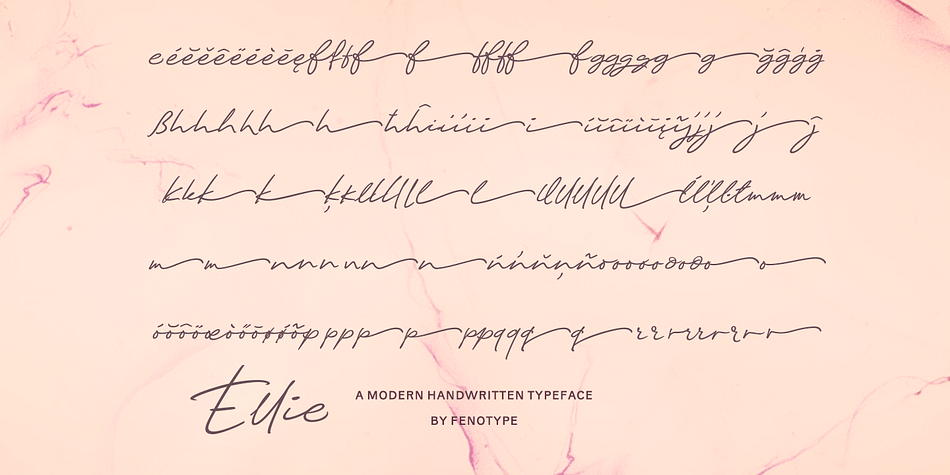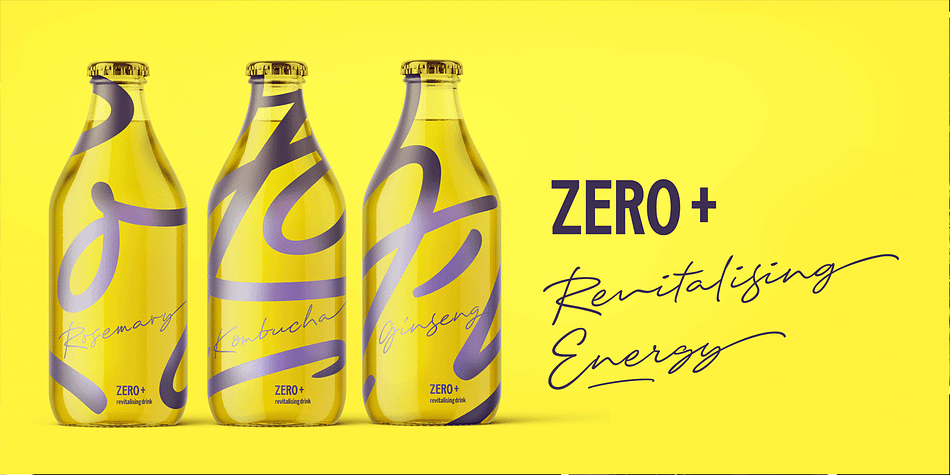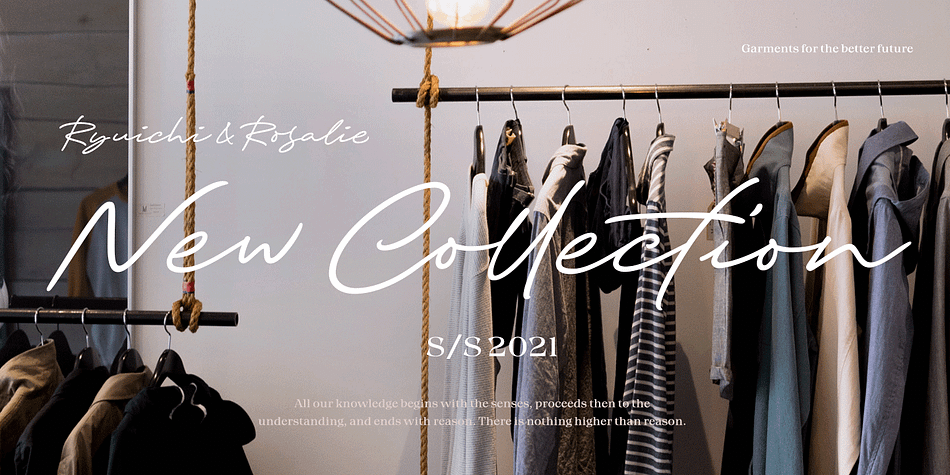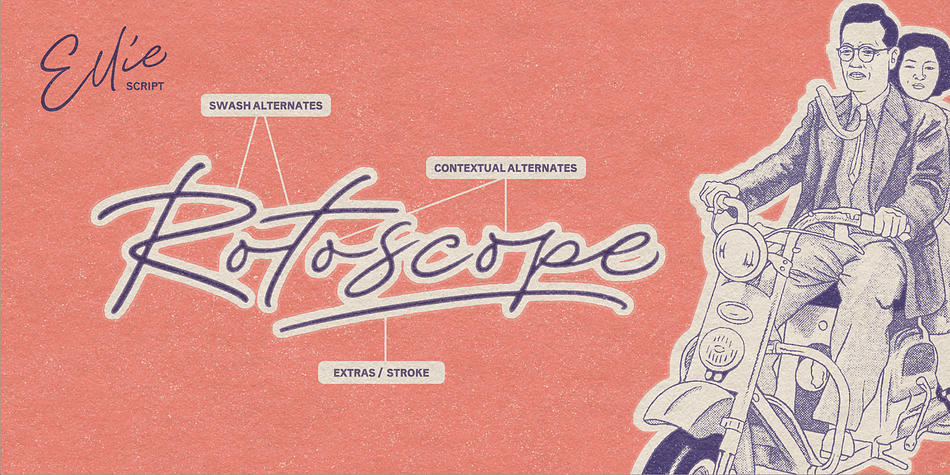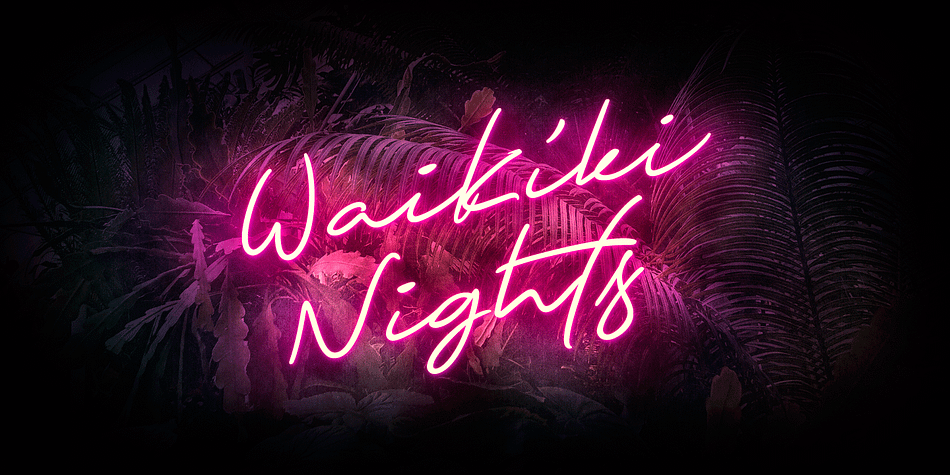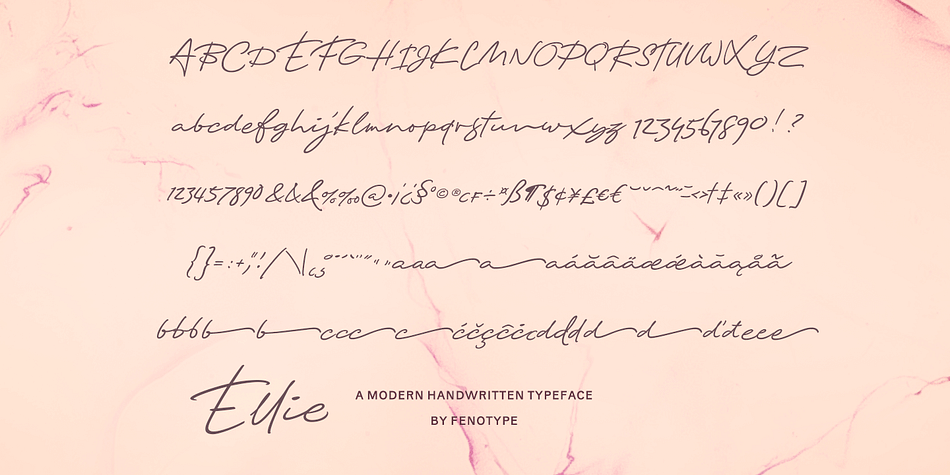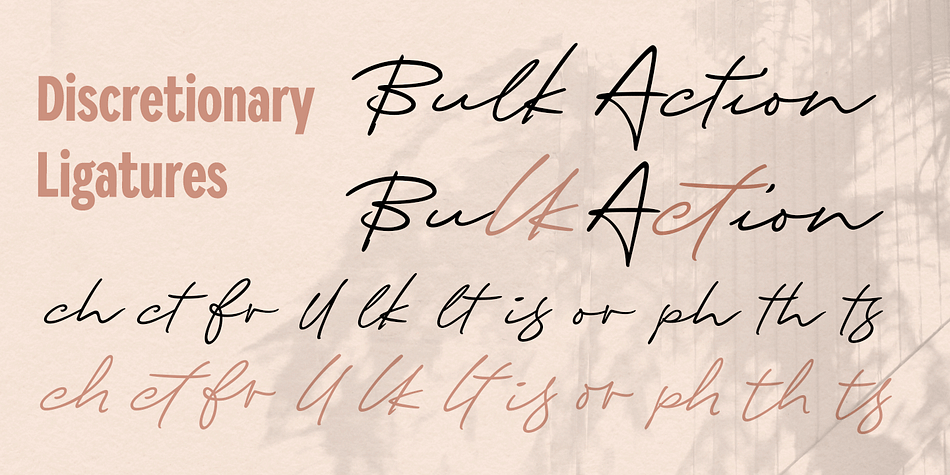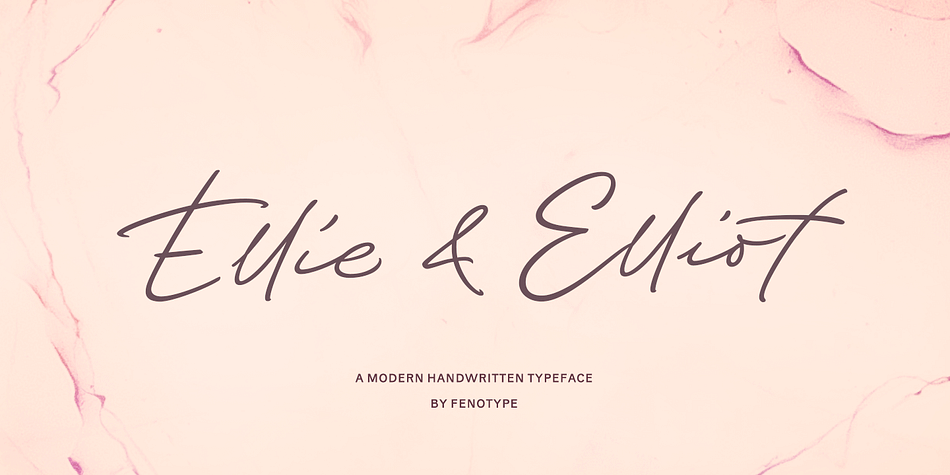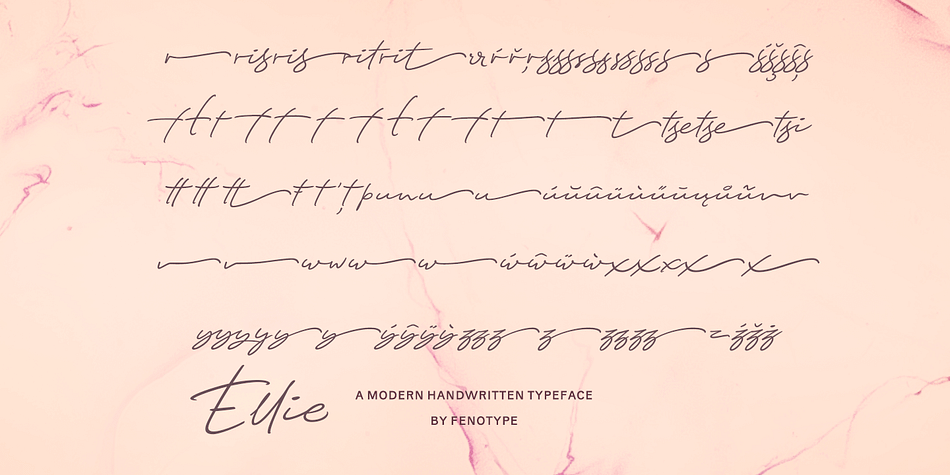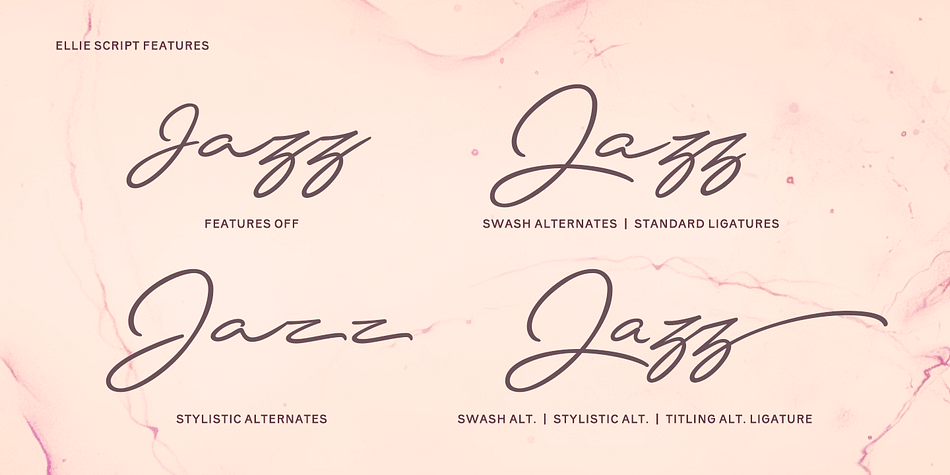
Designed by Emil Bertell, Ellie Script is a modern calligraphy, script and dingbat font family. This typeface has two styles and was published by Fenotype.
Ellie Script is a hand drawn signature style typeface. Ellie is great for branding, headlines, invitation cards, poems, posters or as a logotype.
Boasting over 600 glyphs, Ellie is equipped with handy OpenType features - Contextual Alternates and Standard Ligatures are automatically on and they help to keep the connections smooth and text varied to simulate hand writing. In addition Ellie Script is equipped with Swash and Stylistic Alternates that can be used for more customised look and in addition it has Stylistic Alternates that can be used for long end swash to a word. If that isn’t enough there are also Discretionary Ligatures: certain letter pairs like th, lt, or, is are made into more showy. They work best in shorter texts.
Ellie has three ampersands and two sets of numerals, and even more alternates can be found from the Character Window. Ellie Script is PUA encoded so you can access the extras in most graphic design softwares.